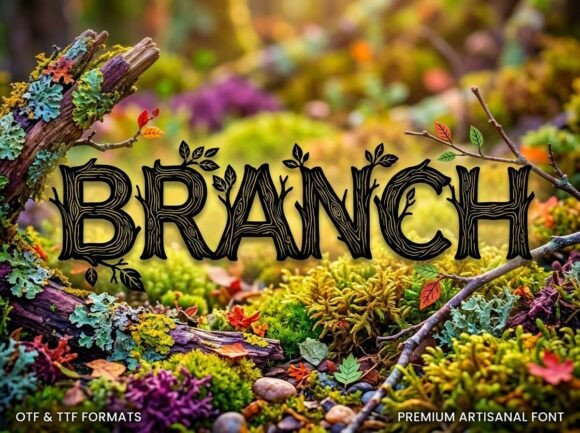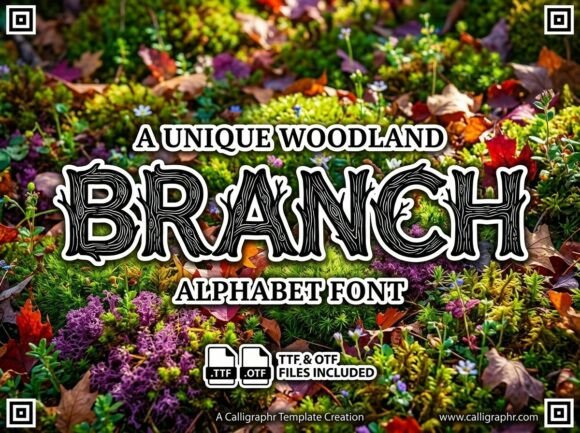
Branched Out: Unleashing the Wild Beauty of Branch Font
Are you ready to infuse your designs with the untamed essence of the forest? Look no further than Branch, a captivating woodland foliage display typeface that brings the natural world to life. This extraordinary font is meticulously crafted to transport your text to a whimsical realm where organic beauty reigns supreme.
The Genesis of Branch Font
Branched is an exquisite display font that embodies the perfect harmony between architectural structure and fairytale magic. Its heavy, structured letterforms are carefully carved out of realistic tree trunks and twisting forest branches, giving it a sturdy, earthy feel. The font’s design is characterized by a deep, hand-drawn wood grain bark texture that adds depth and visual interest to each letterform.
One of the most striking features of Branch Font is its attention to detail. Delicate organic twigs and leaf knots sprout from the terminals of each letter, imbuing the font with a sense of movement and life. This level of intricacy makes Branch an exceptional choice for designers seeking to create visually stunning typography that resonates with their audience.
Applications of Branch Font
Branched Font is an incredibly versatile typeface that lends itself to a wide range of creative applications. Its natural, earthy charm makes it an ideal choice for:
- Nature reserve logos: Bring a sense of authenticity and connection to the great outdoors with Branch Font’s organic, wilderness-inspired aesthetic.
- Organic grocery branding: Convey your commitment to sustainability and eco-friendliness with a font that echoes the natural world.
- Fantasy book cover headers: Transport your readers to enchanted realms with Branch Font’s fairytale-inspired charm.
- Botanical garden signage: Guide visitors through lush gardens and greenhouses with a font that embodies the beauty of the natural world.
- Rustic wedding invitations: Add a touch of whimsy and romance to your wedding stationery with Branch Font’s unique, hand-crafted aesthetic.
Bringing Professionalism and Whimsy to Your Typography
Branched Font strikes the perfect balance between professionalism and playfulness, making it an excellent addition to any designer’s toolkit. Its high-impact display letterforms deliver a rich sense of design intelligence, while its organic, illustrative soul injects a sense of wonder and enchantment into your typography layouts.
Whether you’re a seasoned designer or a crafty DIY enthusiast, Branch Font offers a world of creative possibilities. With its deep connection to the natural world, this extraordinary font is sure to inspire your next design project and leave a lasting impression on your audience.
Getting Started with Branch Font
Ready to unleash the wild beauty of Branch Font in your designs? Here are some tips to get you started:
- Experiment with font sizes: Branch Font’s bold, display letterforms are perfect for headlines and titles, while its delicate details shine at larger font sizes.
- Play with textures: Combine Branch Font with natural textures like wood, stone, or foliage to amplify its organic charm.
- Mix and match: Pair Branch Font with complementary typefaces to create visually striking typography layouts that showcase your creativity.
With Branch Font, the possibilities are endless. So why wait? Dive into the world of woodland wonder and discover the magic of this extraordinary typeface for yourself.